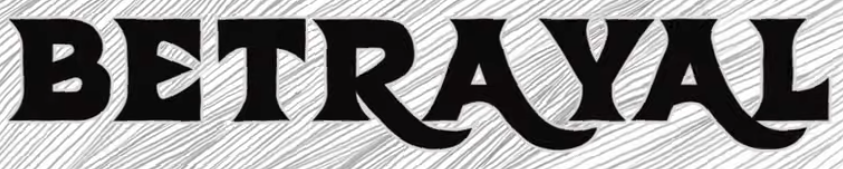
I tried a few different font search tools but no luck, I think because the big swoops in the A and R confuse the glyph detectors. Anybody know this one?
Trick or Treats font